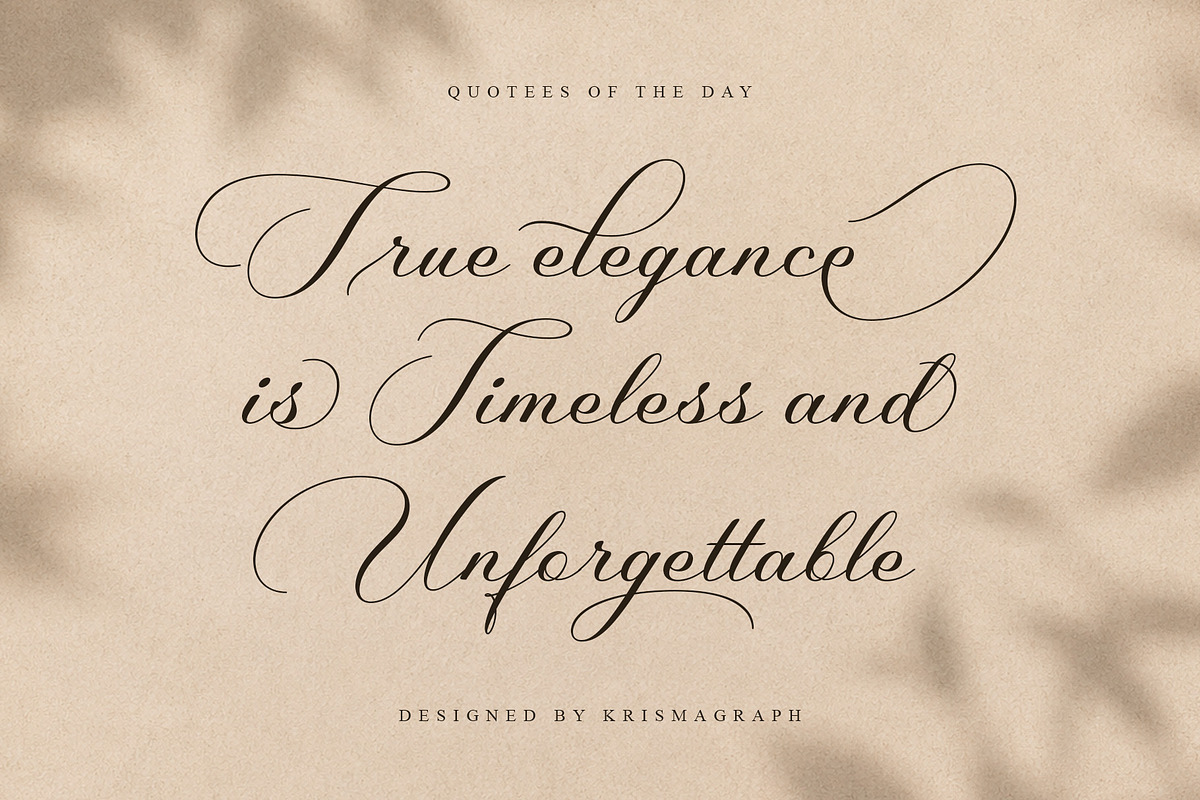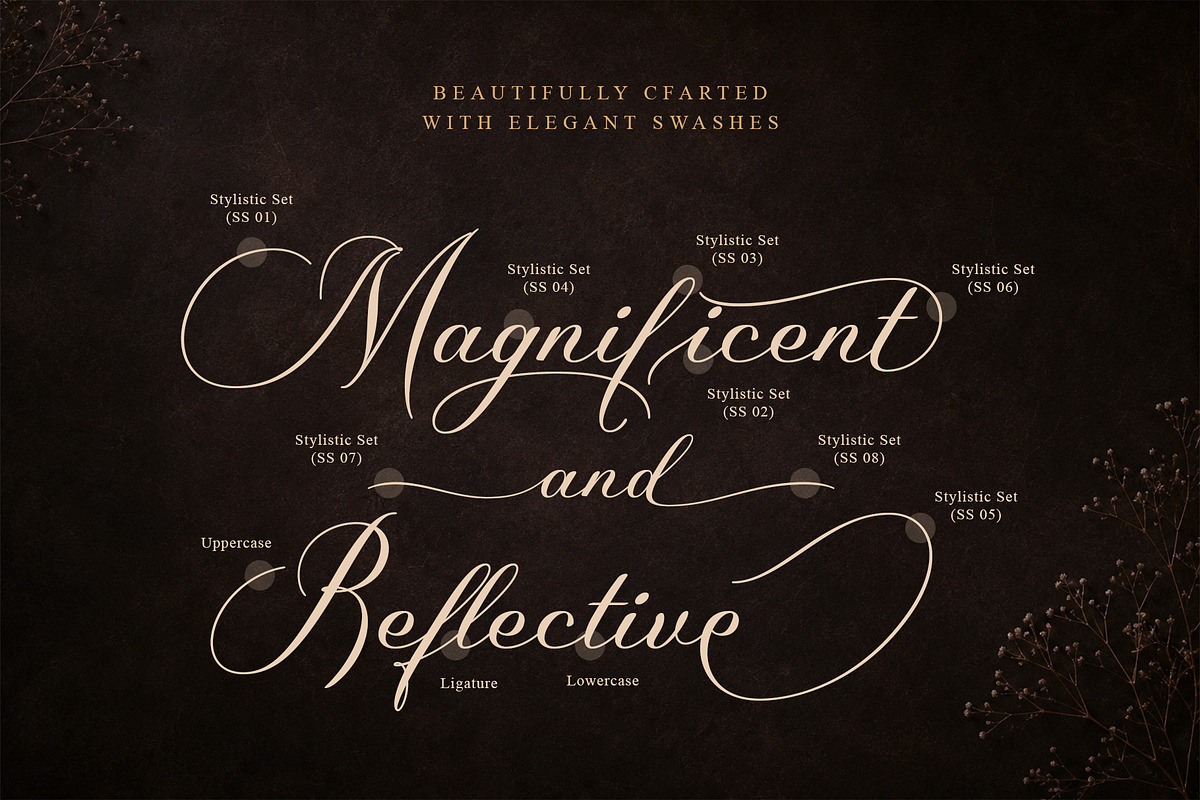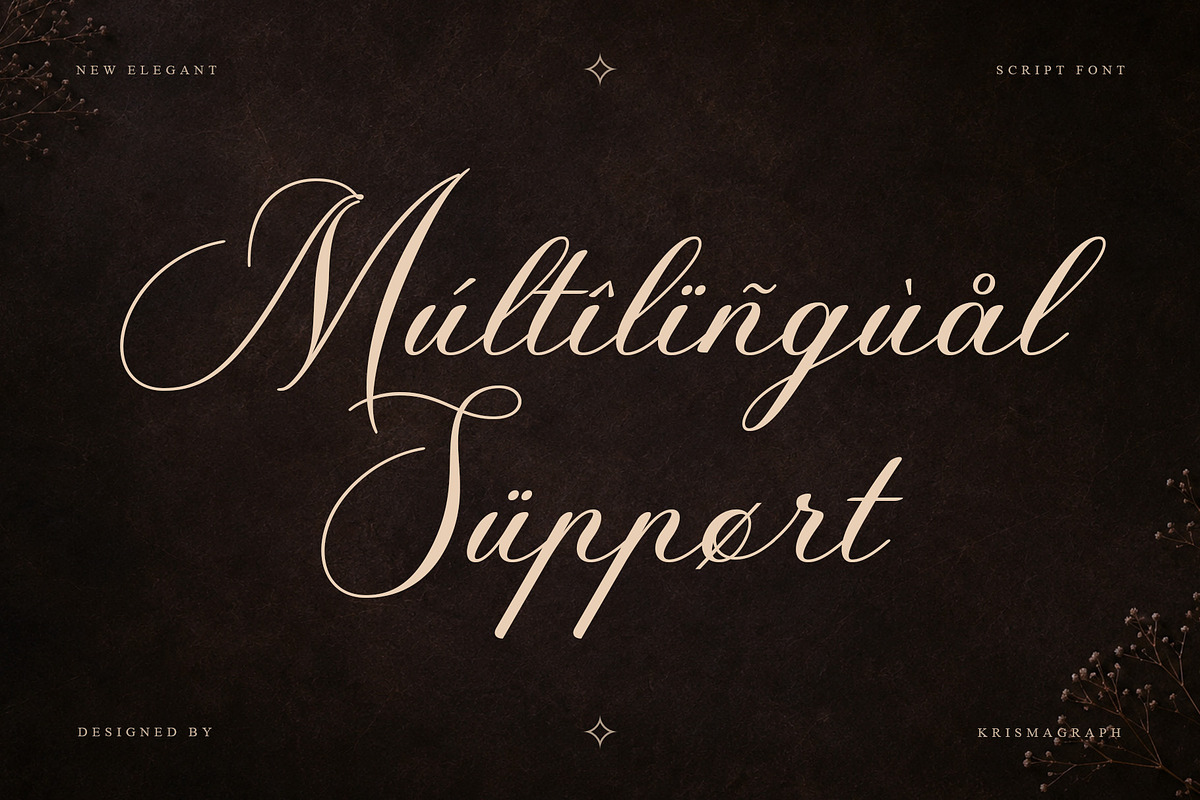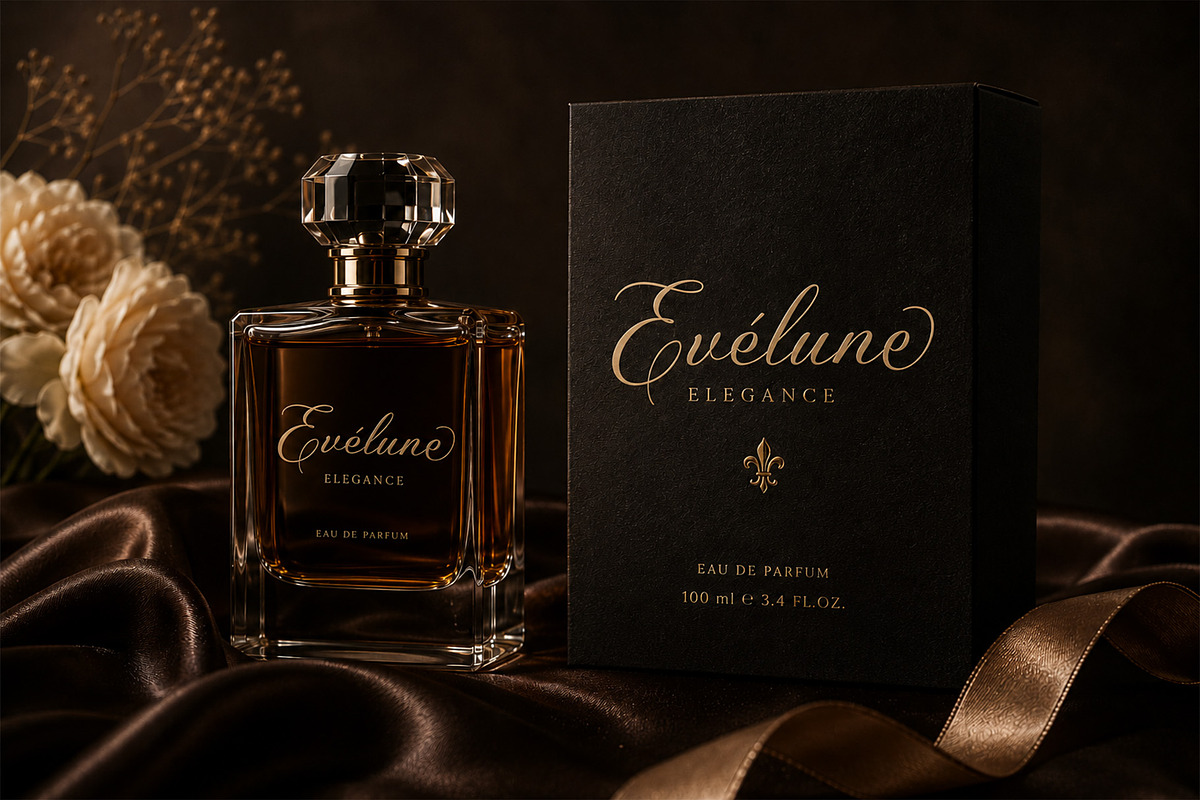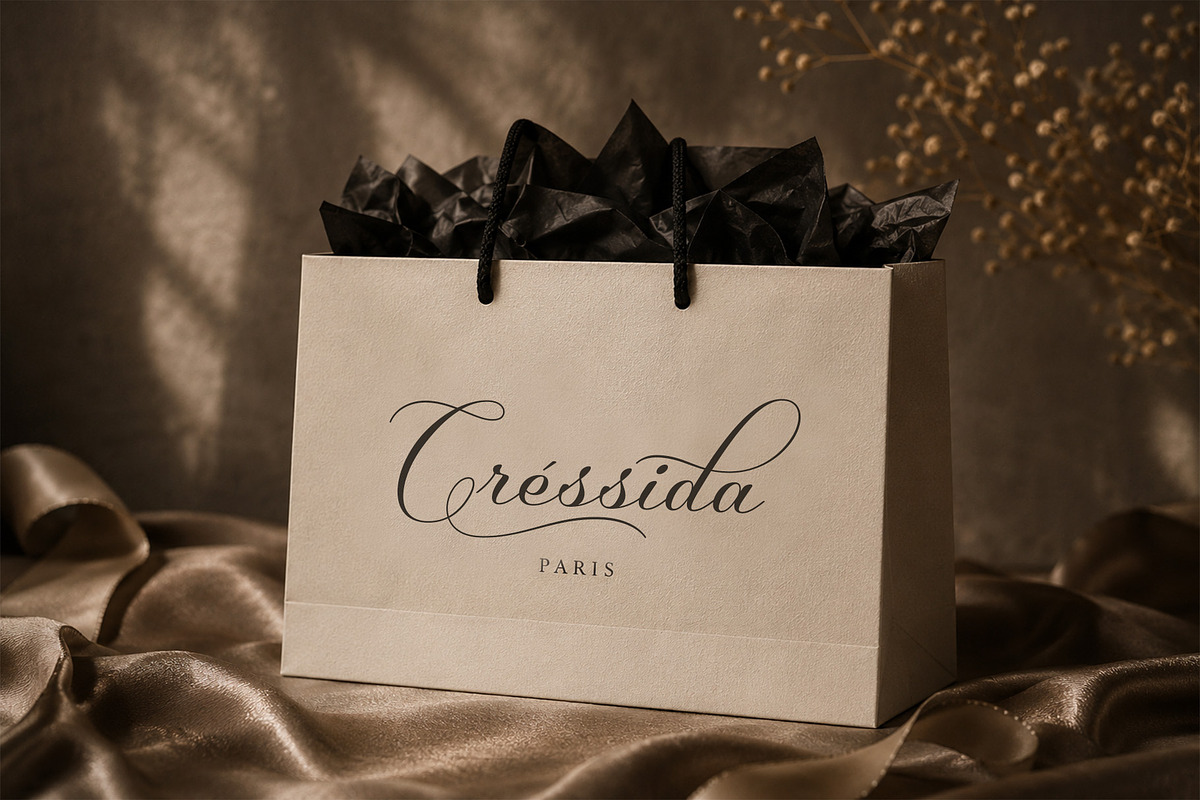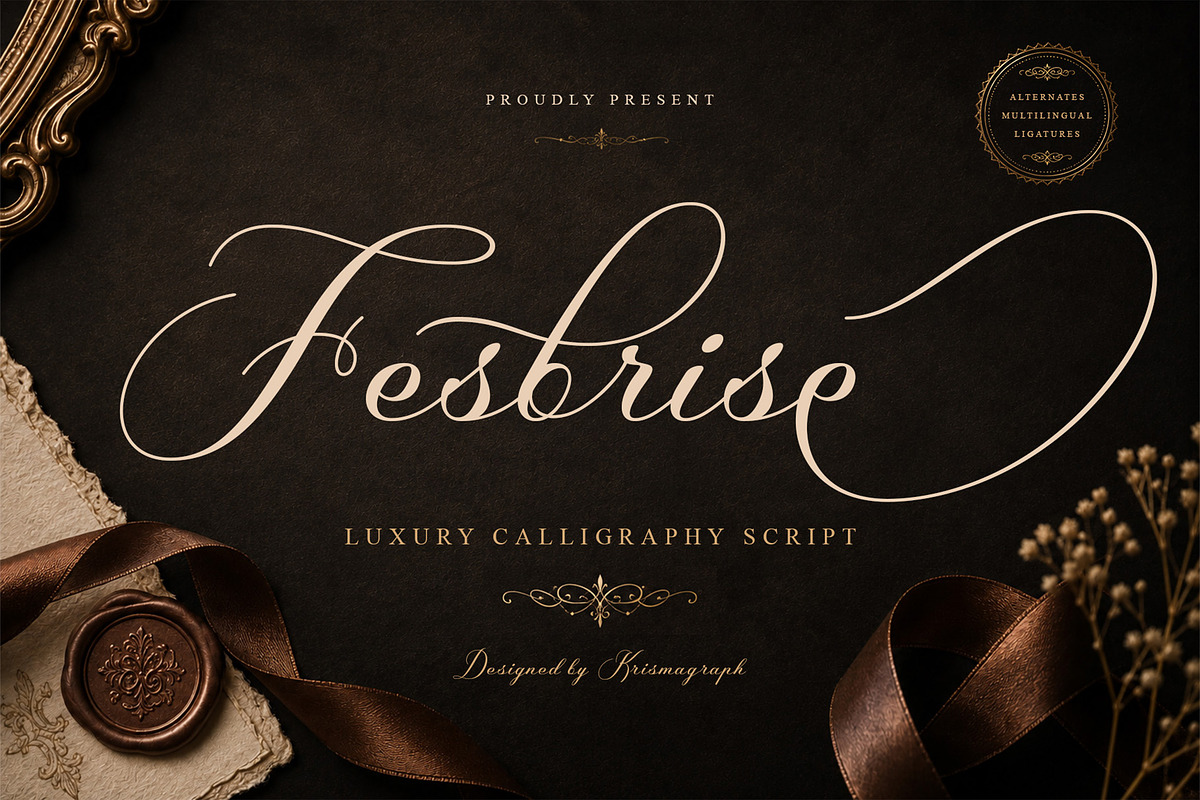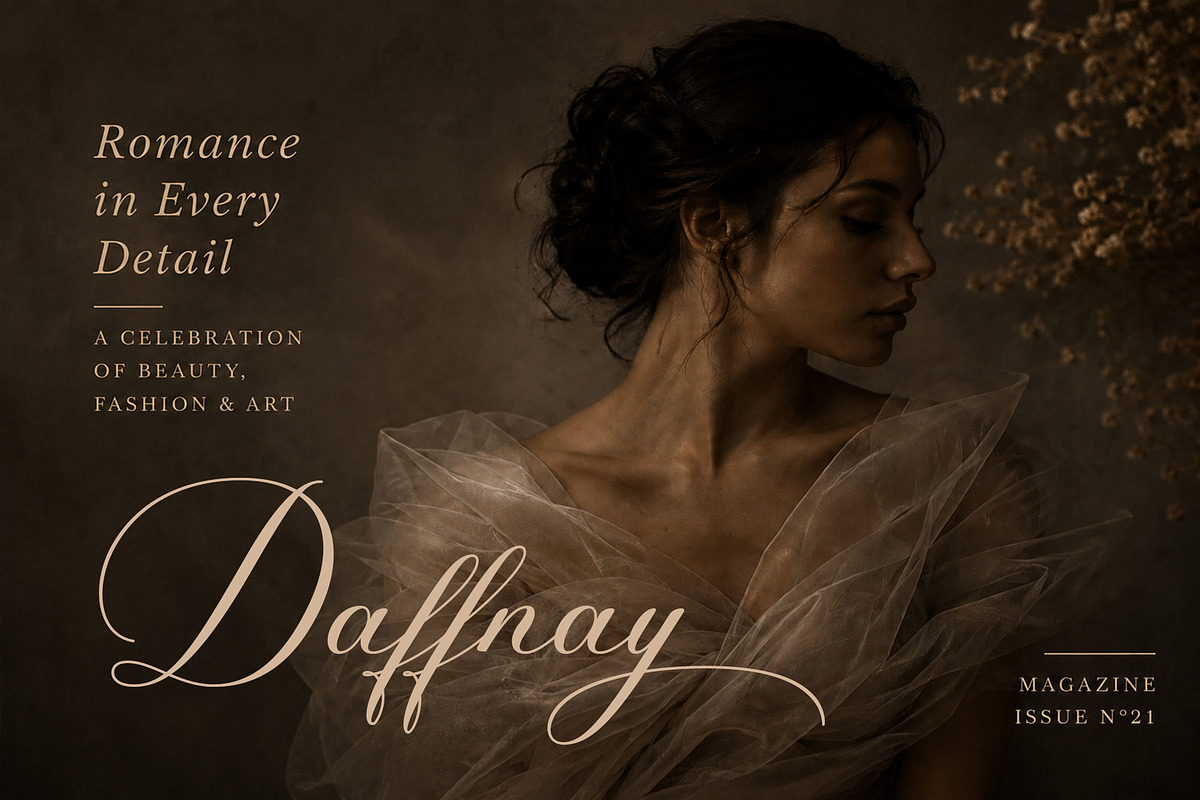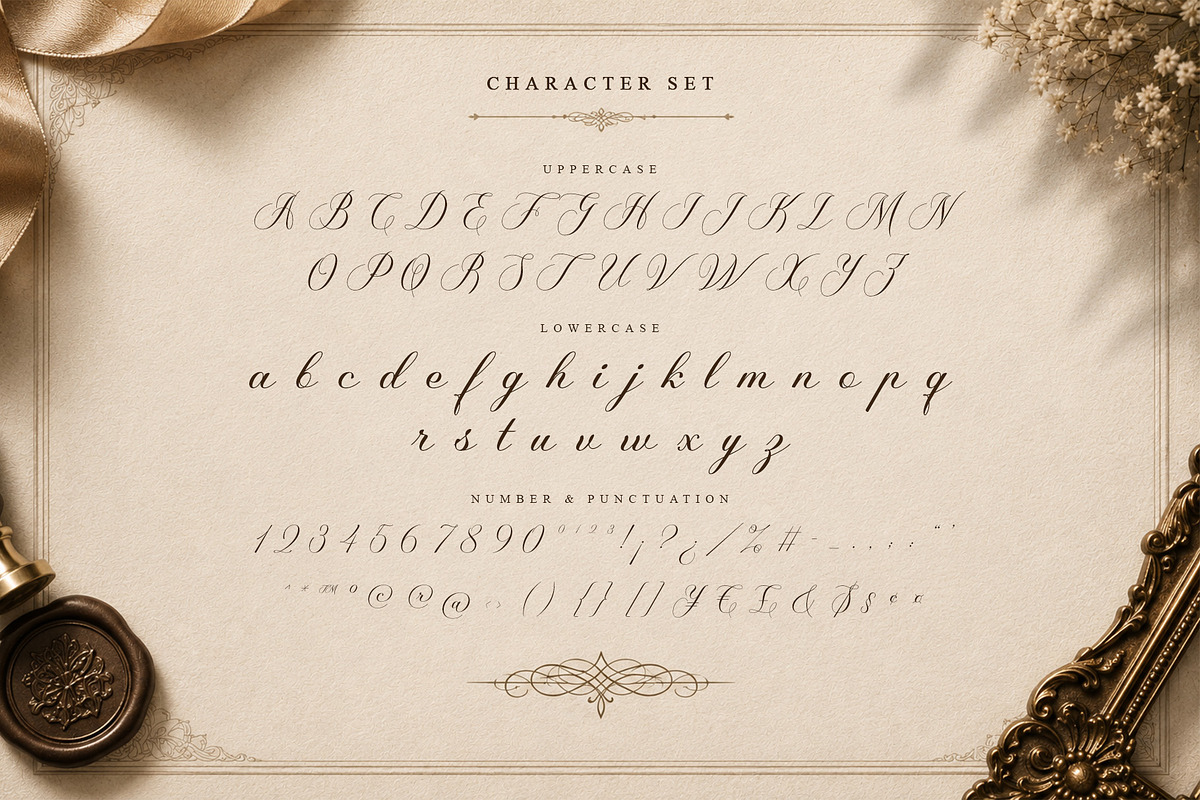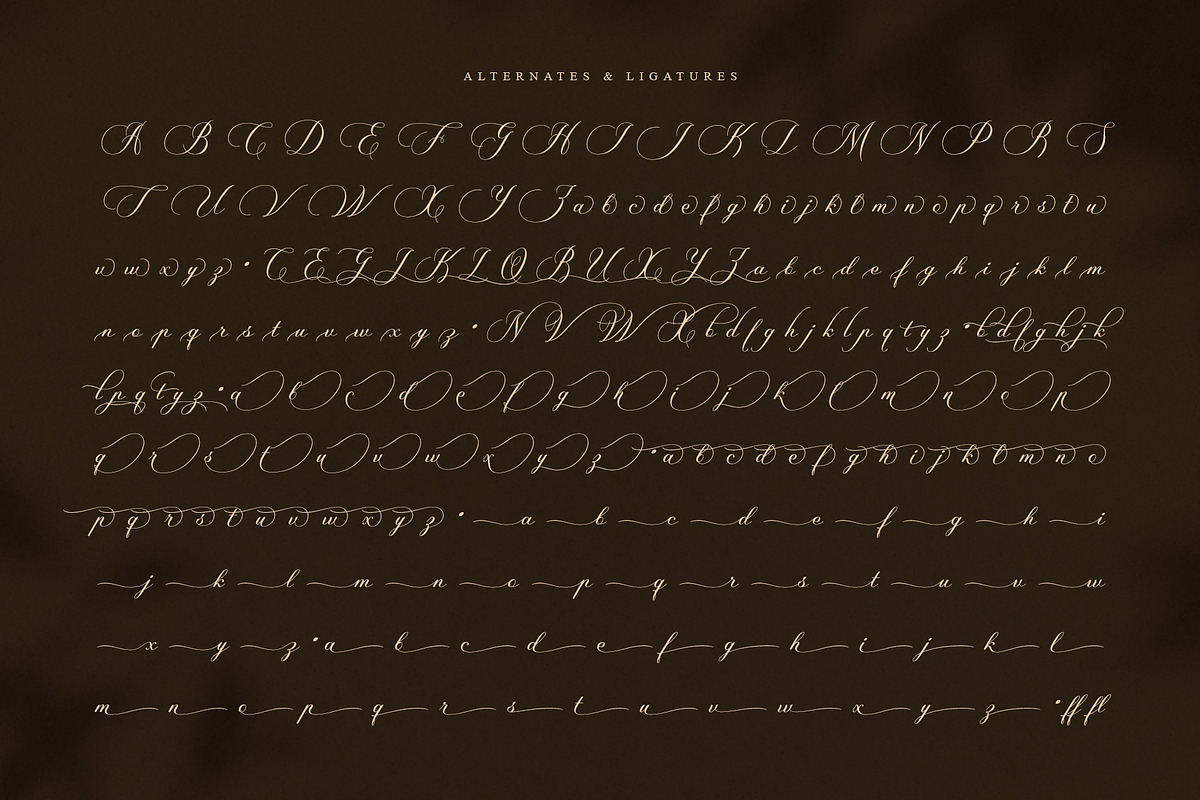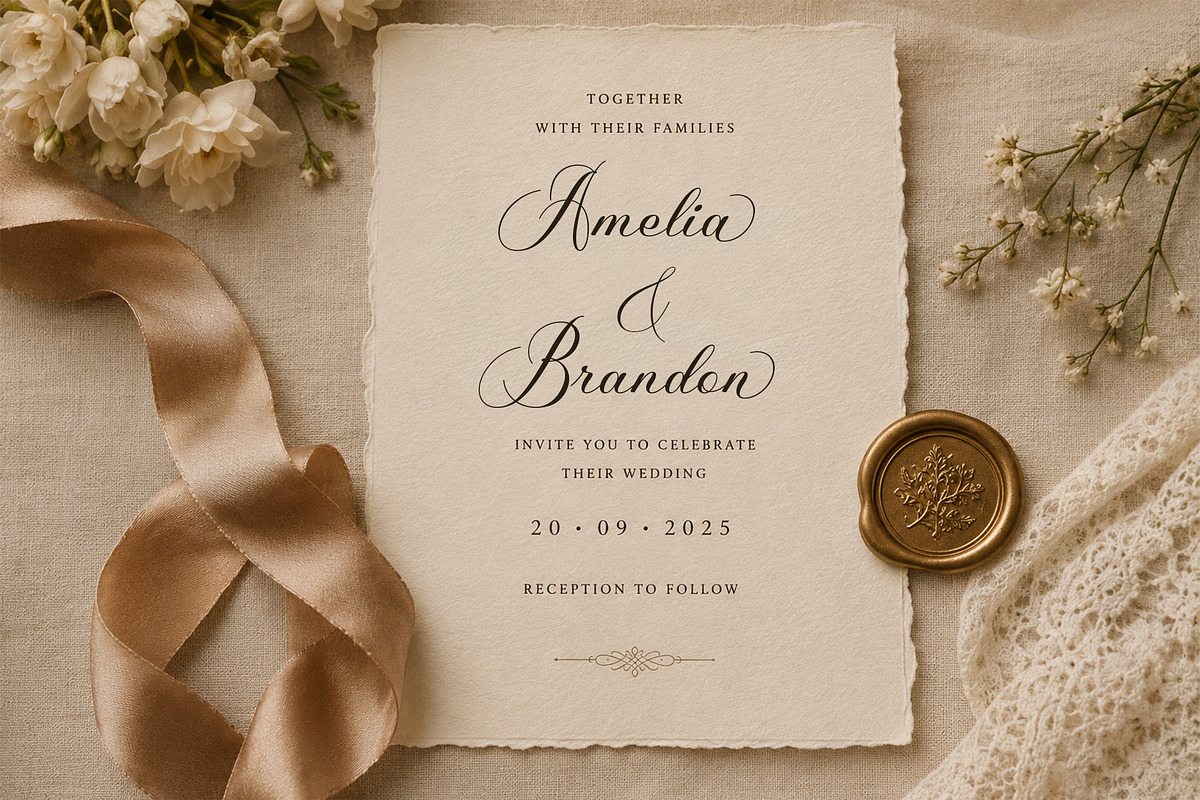
Fesbrise – Luxury Calligraphy Script
Fesbrise is a luxury calligraphy script font that embodies elegance, romance, and timeless sophistication. Designed with flowing strokes, graceful swashes, and refined handwritten details, Fesbrise creates an exquisite typographic experience that instantly elevates any design.
Featuring beautiful alternates, ligatures, and multilingual support, Fesbrise offers both versatility and artistic expression. Its delicate curves and dramatic flourishes bring a sense of movement and refinement, making every word feel personal and luxurious.
Fesbrise is perfectly suited for branding projects, logos, invitations, editorial accents, packaging, certificates, social media graphics, website headers, and premium print materials. Whether used for romantic themes, luxury branding, or elegant visual storytelling, Fesbrise delivers a sophisticated and memorable presence.
Crafted for designers who appreciate fine lettering and timeless beauty, Fesbrise transforms typography into an expressive work of art.
Lowercase
Ligature & alternates
Ideal for large headlines & displays
Numerial